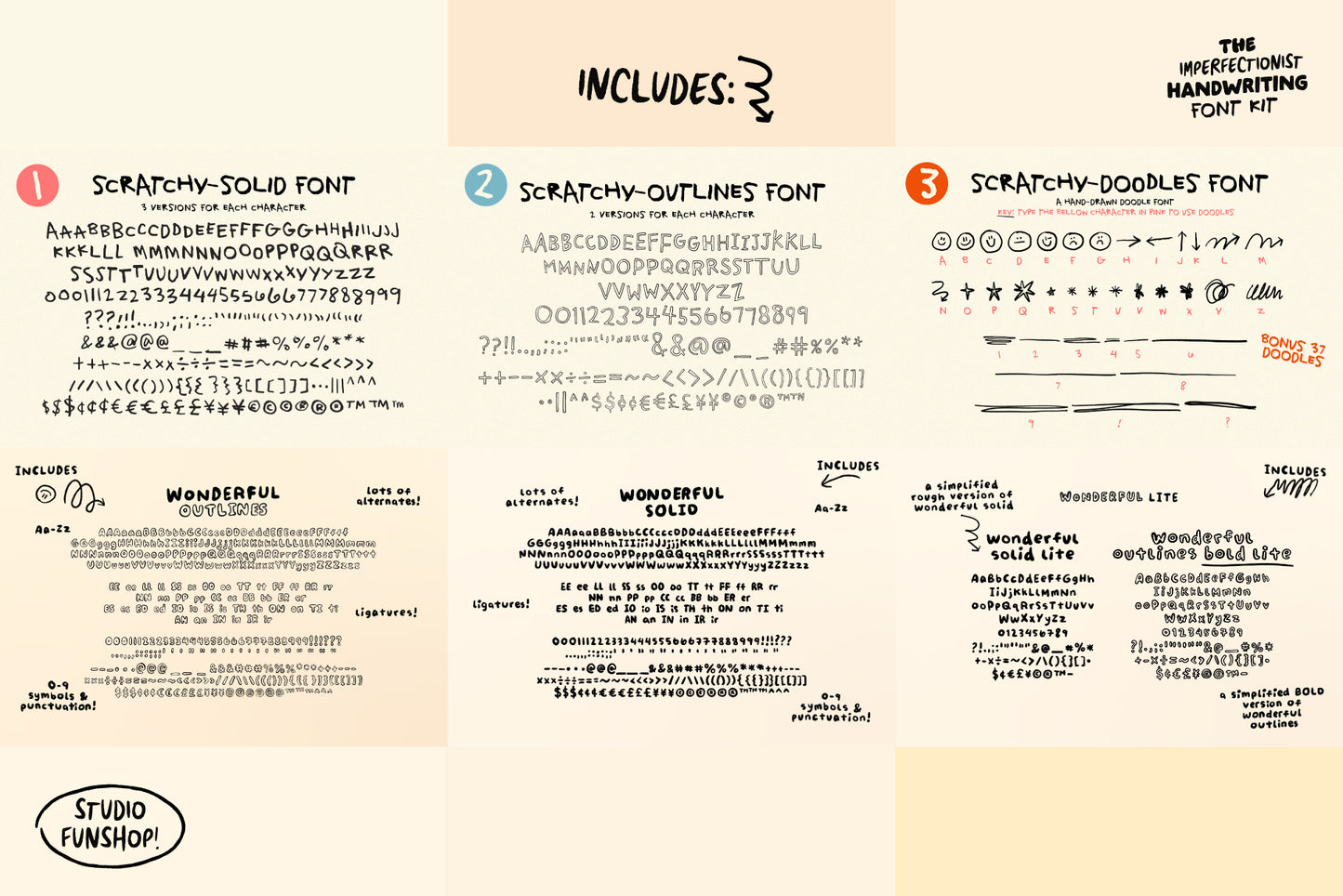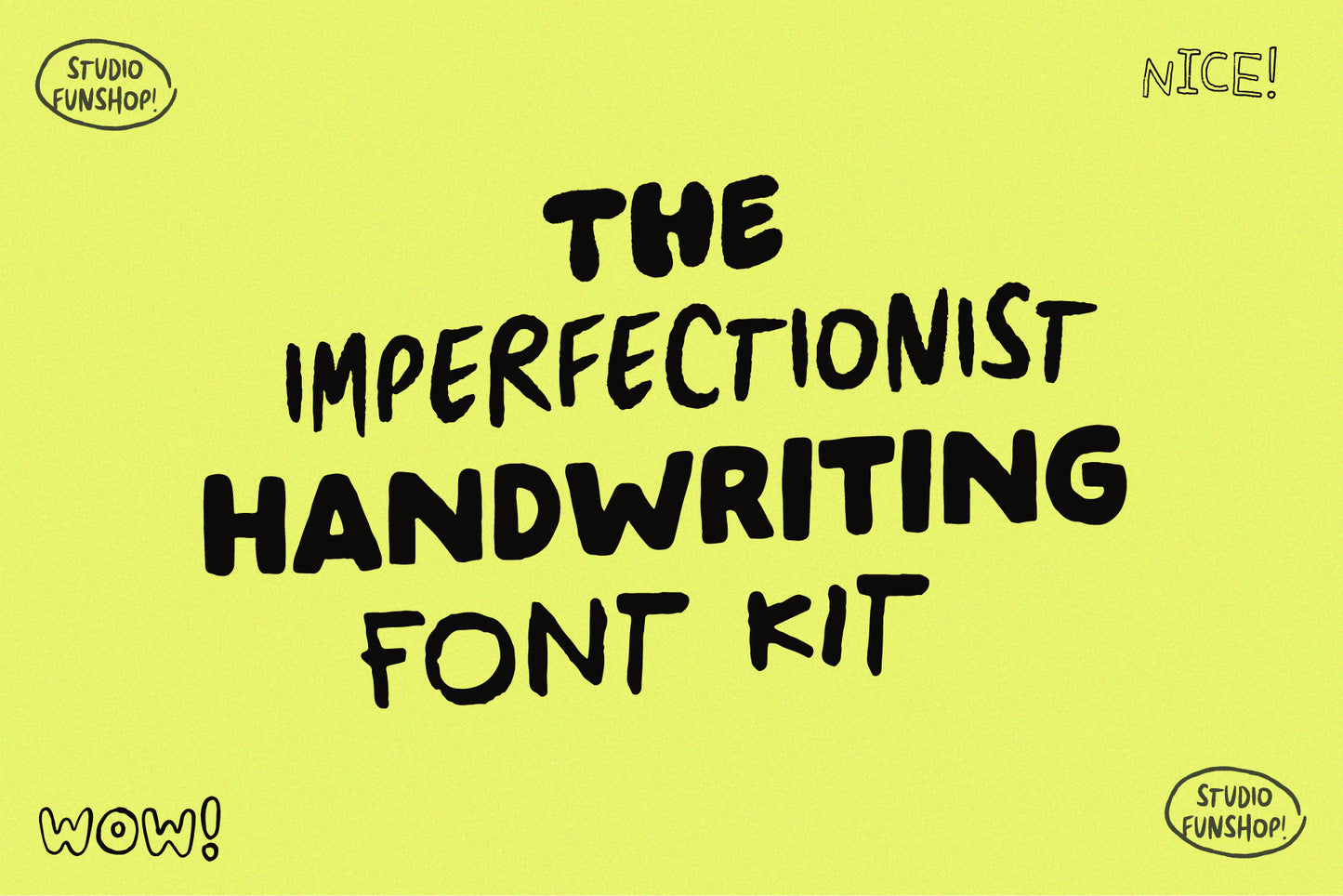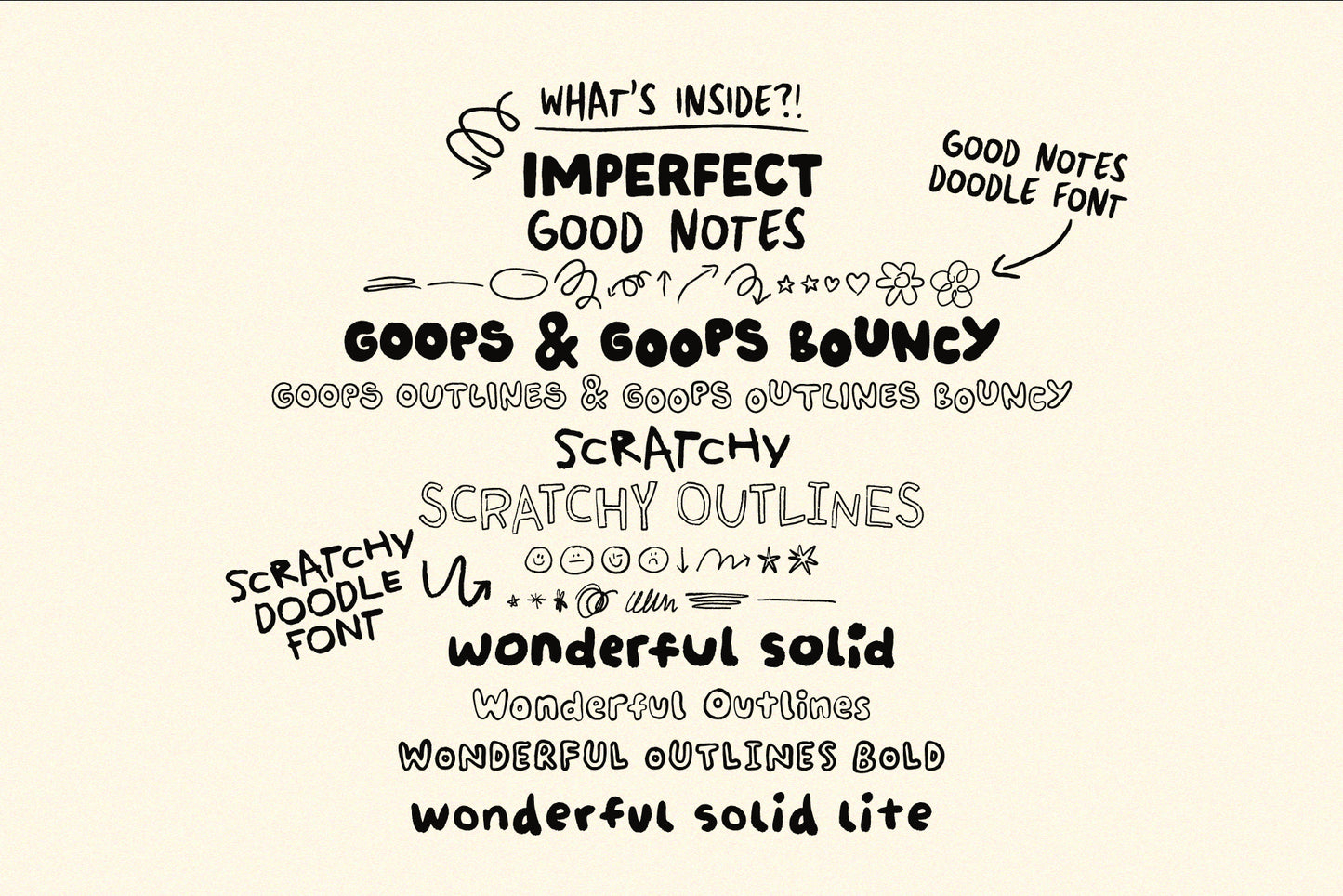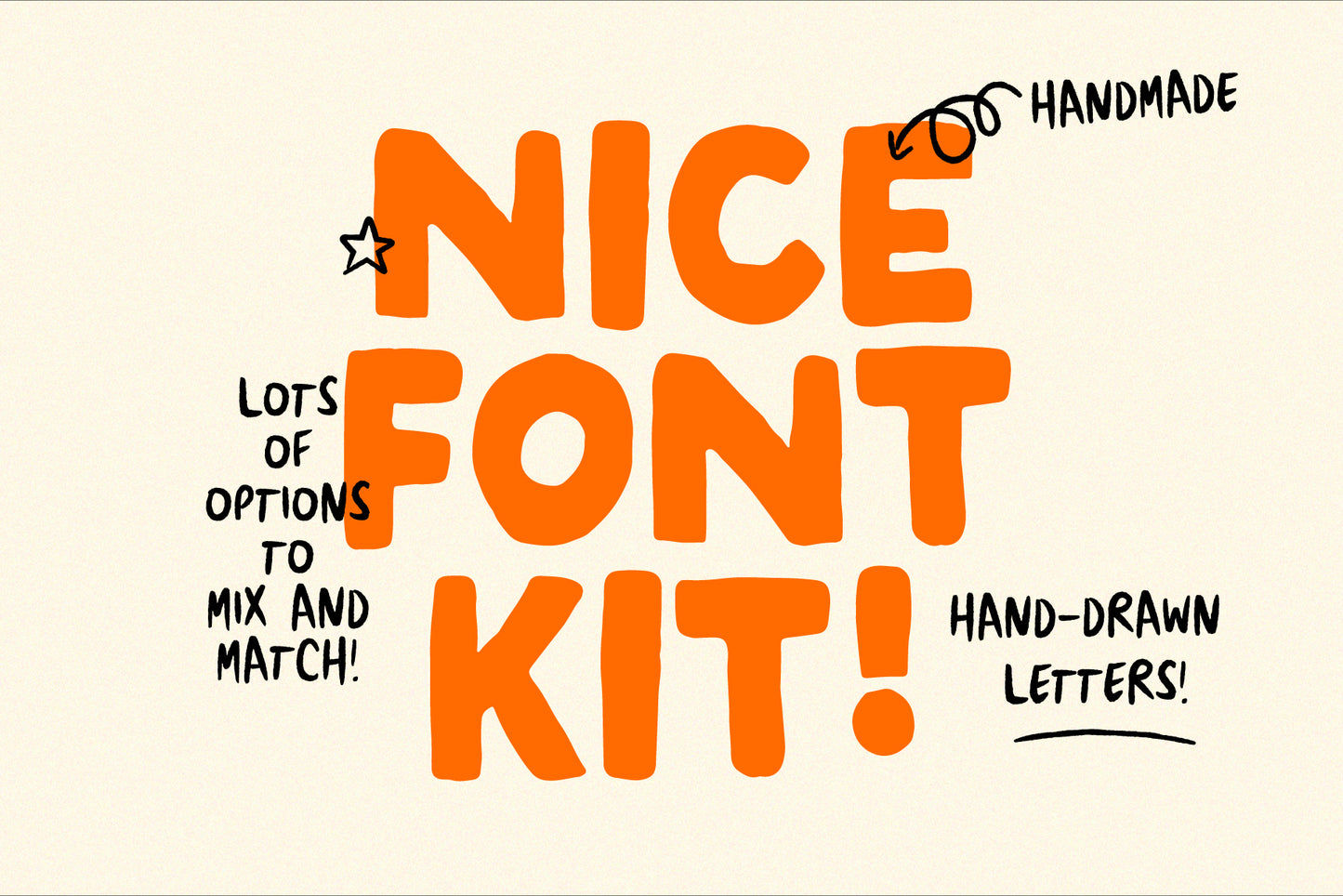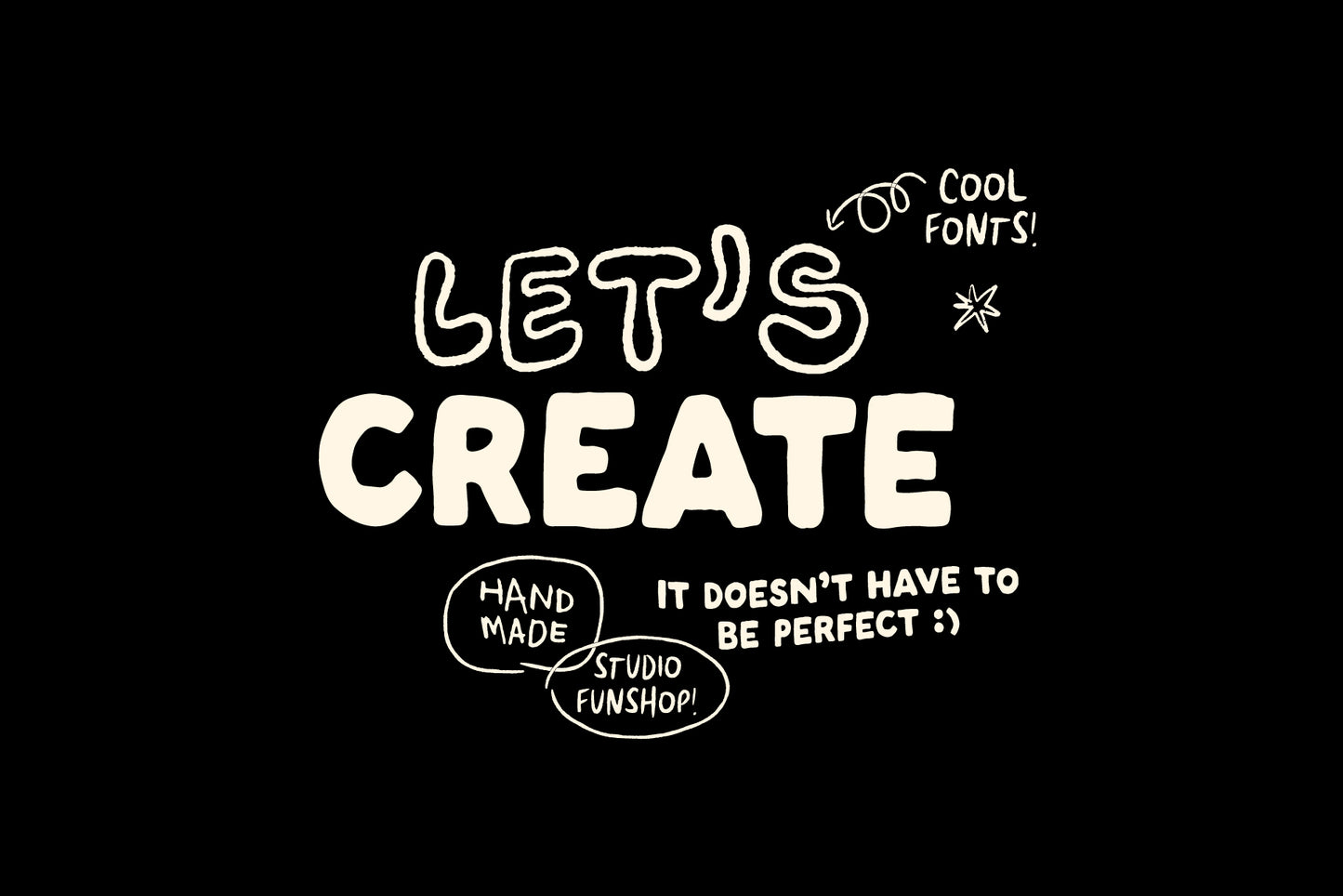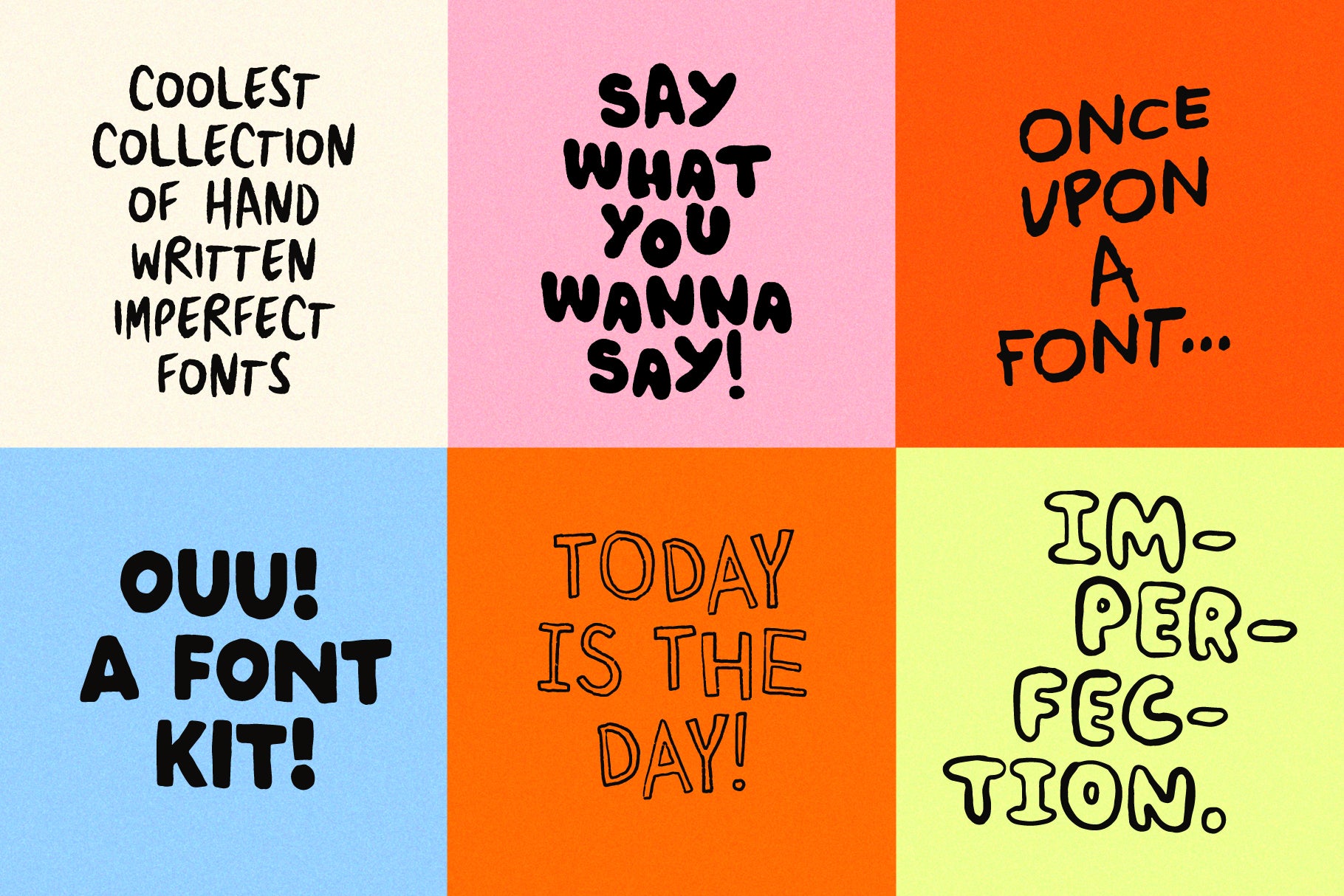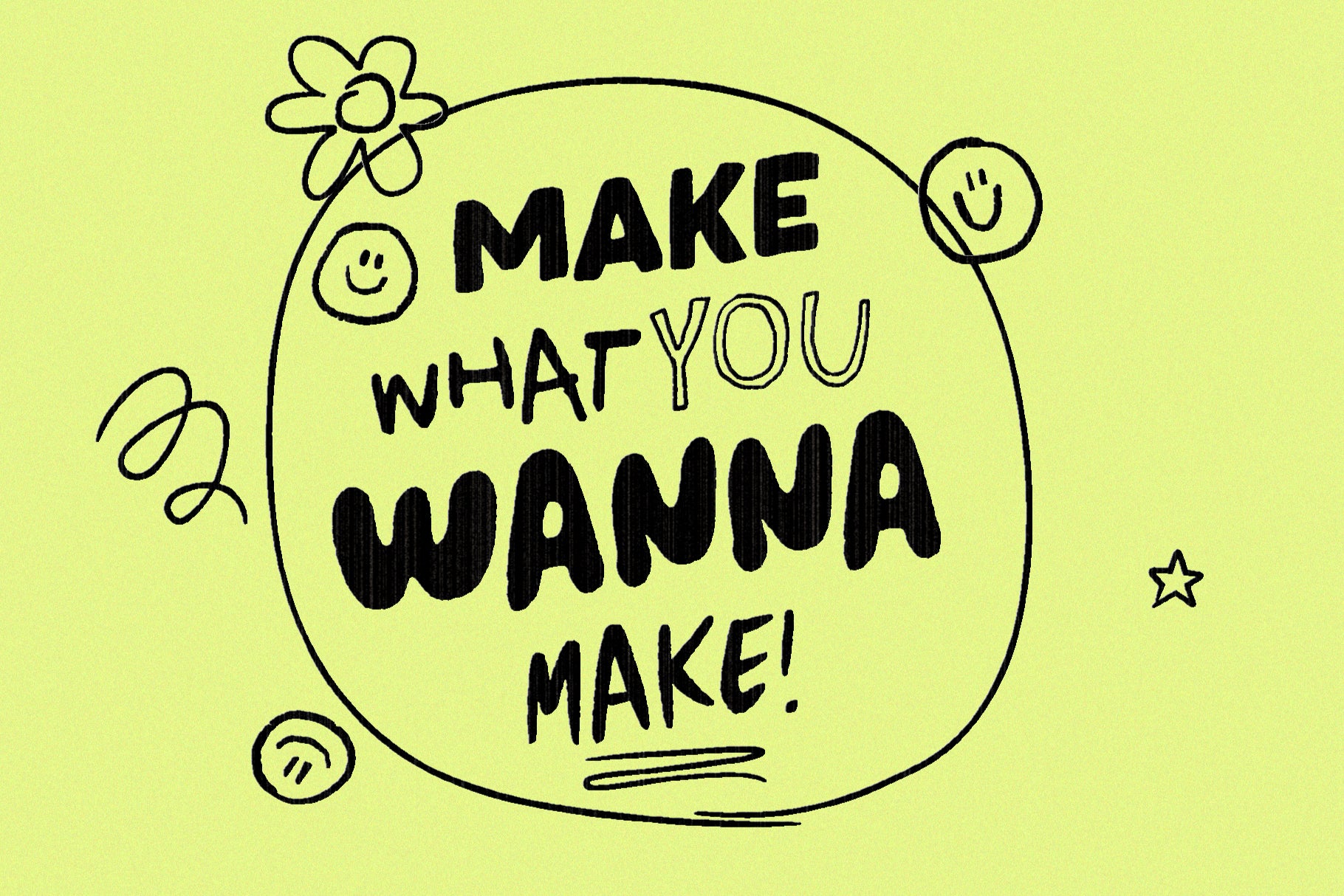
Imperfectionist Handwriting Font Kit
The perfect imperfect handwritten font kit for all your design needs! Use individually or mix and match for lots of fun.
Includes 14 font files! All characters were handwritten by me to get that realistic hand-made look and feel.
What's in the fonts? Some Uppercase and Lowercase Fonts! Some All Caps Fonts! 2 Doodle Fonts! Symbols! Punctuation! Alternates! (see slides for details)